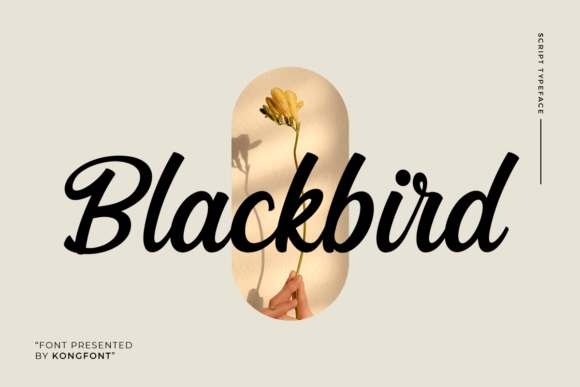
The Elusive Perfect Font: My Encounter with Blackbird
Ah, the quest for the perfect font. It’s a journey every designer, crafter, and creative hobbyist knows all too well. I recall working on a wedding invitation project, determined to create something truly special for the happy couple. The design was coming along beautifully, but then I hit a roadblock: finding the right font. That’s when I stumbled upon Blackbird, a modern and stylish script font that would change the game.
First Impressions: A Love Letter to Blackbird
Blackbird is a beautifully crafted, highly detailed script font that exudes elegance and sophistication. Its neat and refined appearance makes it perfect for a variety of designs, from wedding invitations and thank you cards to quotes, greeting cards, logos, and business cards.
- ✨ PUA Encoding: Blackbird is PUA encoded, making it easy to access all the glyphs and swashes. This feature allows for endless creative possibilities and flexibility.
- ✅ Highly Detailed: The font’s intricate details and refined lines make it a standout in any design.
- 💕 Versatile: Blackbird’s elegant appearance lends itself to a wide range of projects, from formal events to branding and advertising.
While Blackbird is an exceptional font, there are a few minor considerations to keep in mind:
- ⚠️ Legibility at Small Sizes: As with many script fonts, Blackbird may lose some legibility when used at very small sizes. It’s best to use it at larger sizes or for headlines.
- 🤔 Pairing with Other Fonts: Due to its distinctive style, Blackbird may require some experimentation to pair well with other fonts. Be prepared to try out different combinations to find the perfect match.
The Story Behind Blackbird: Designer Inspiration
Blackbird was crafted with the intention of creating a beautiful, modern script font that would inspire creativity and elegance. The designer aimed to create a font that would be both versatile and refined, perfect for a wide range of design applications. While the actual designer’s story may be unknown, it’s clear that Blackbird was created with passion and attention to detail.
Q: Is Blackbird suitable for body text?
A: While Blackbird is a beautiful font, it’s best suited for headlines, titles, and short paragraphs. For body text, consider using a more legible font to ensure readability.